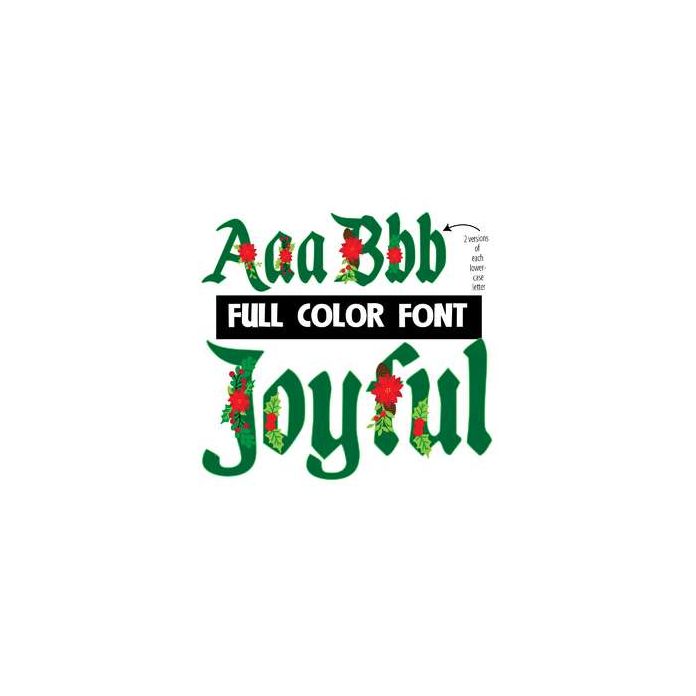
This full-color font features a green calligraphy style letter with poinsettia decor. There is a plain green alternate lowercase you can access through your system's character map. This font works best for titles, displays, posters and more. Please note color fonts will show as black in non compatible programs. This font type is compatible with Silhouette Studio.